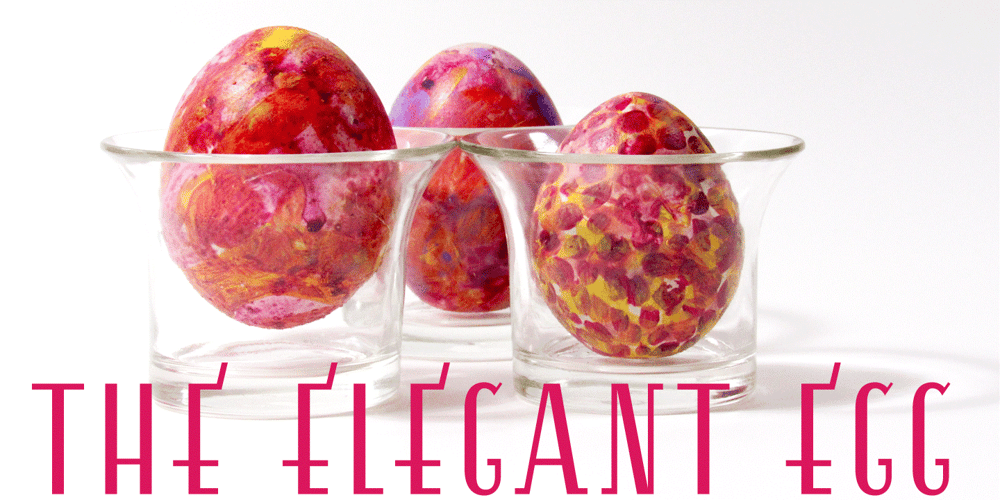
Esencia Font Family was designed by Jason Castle and published by CastleType. Esencia contains 1 styles and family package options. Esencia, a CastleType original, was inspired by a Spanish stock certificate from 1941 with 11 beautiful art deco style letters for the words “PERFUMES y ESENCIAS”. Slender, elegant, with a Spanish flare. Uppercase only with numerals and punctuation. Supports all European languages that use the Latin alphabet, as well as modern Greek and most languages that use the Cyrillic alphabet. Includes alternate E, F, and S.